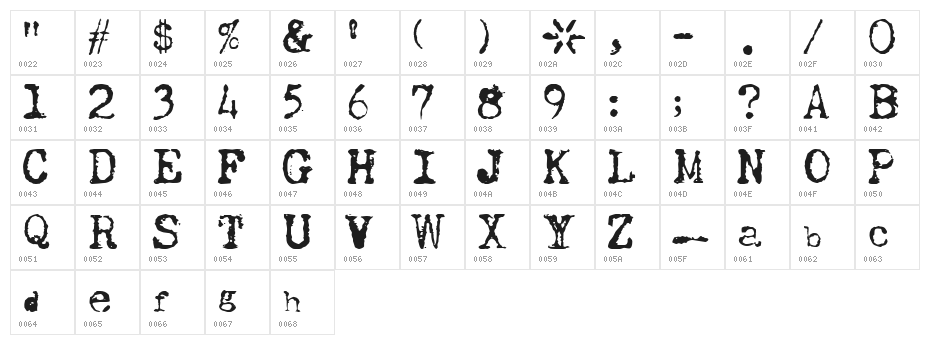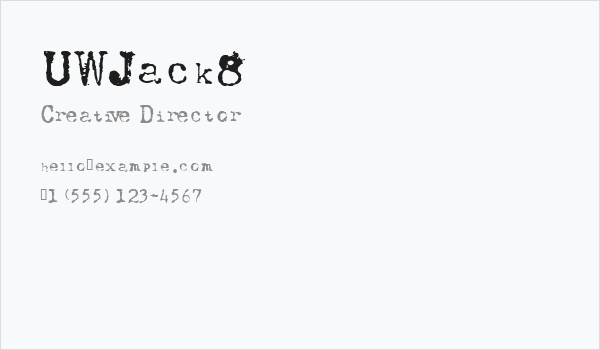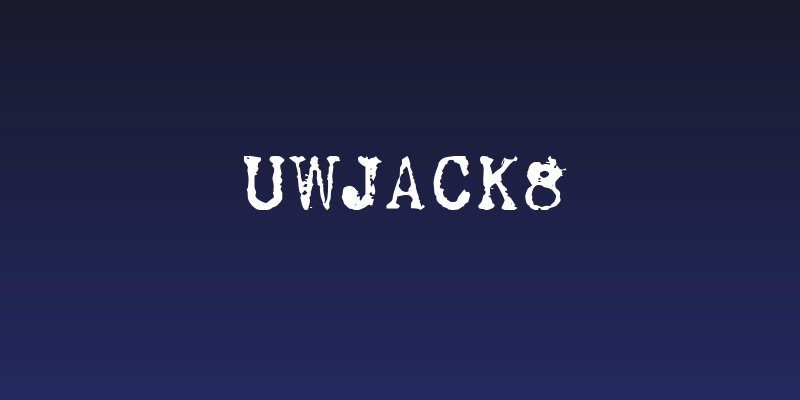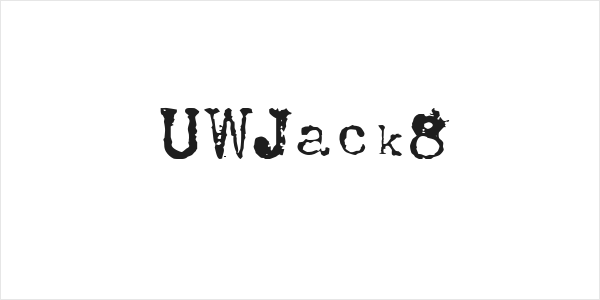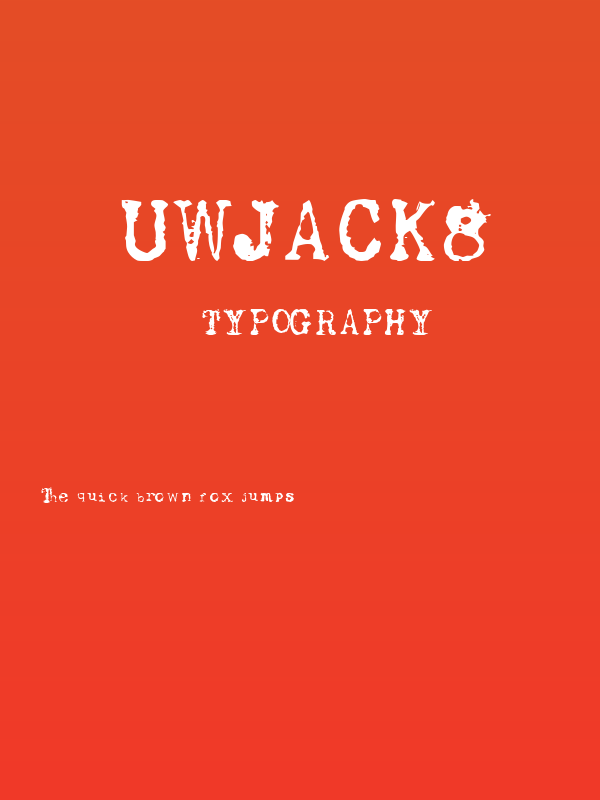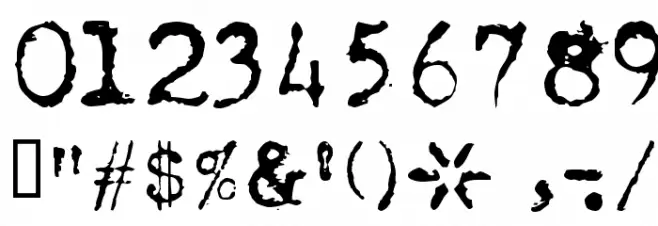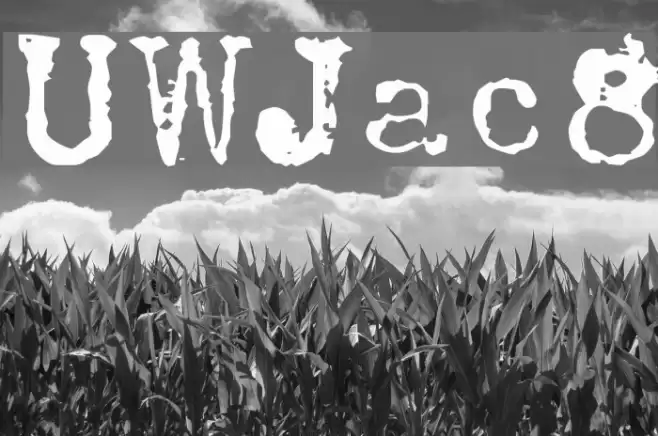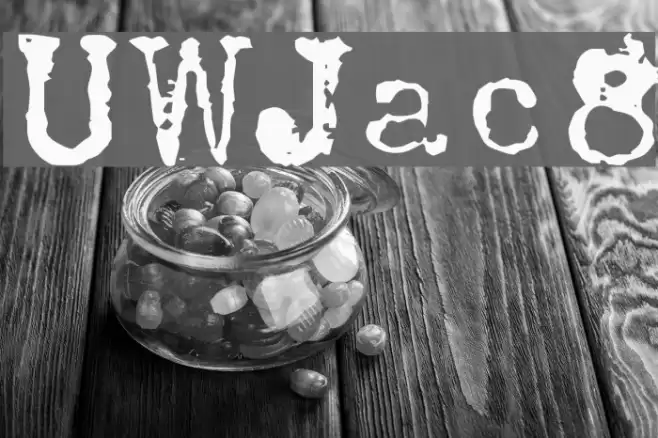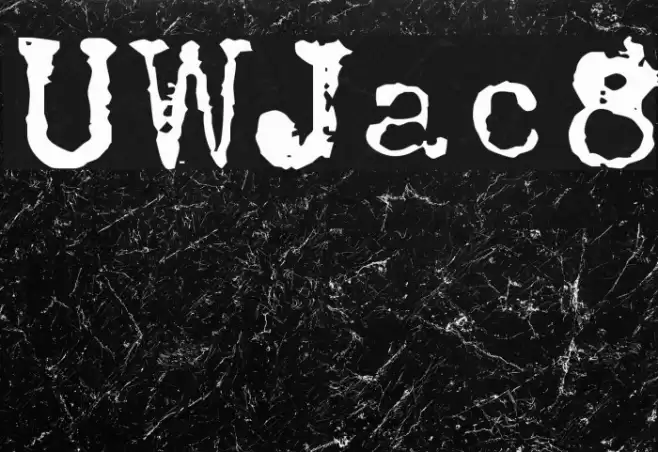
UWJack8 Font
UWJack8 Description
This font features a distressed, grunge style with a rough, textured appearance. The characters are irregular and appear as if they have been stamped or printed with a worn-out typewriter. The uppercase and lowercase letters maintain a consistent style, with jagged edges and uneven surfaces, giving them a vintage, industrial feel. Numbers and special characters follow the same aesthetic, adding to the overall rugged and raw look of the font. This typeface is ideal for projects that require a bold, eye-catching design with a touch of nostalgia and edginess.
| Overall Style | Vintage, Grunge |
| Proposed Projects | Ideal for posters, album covers, branding for edgy or alternative products, and any design needing a bold, vintage touch. |